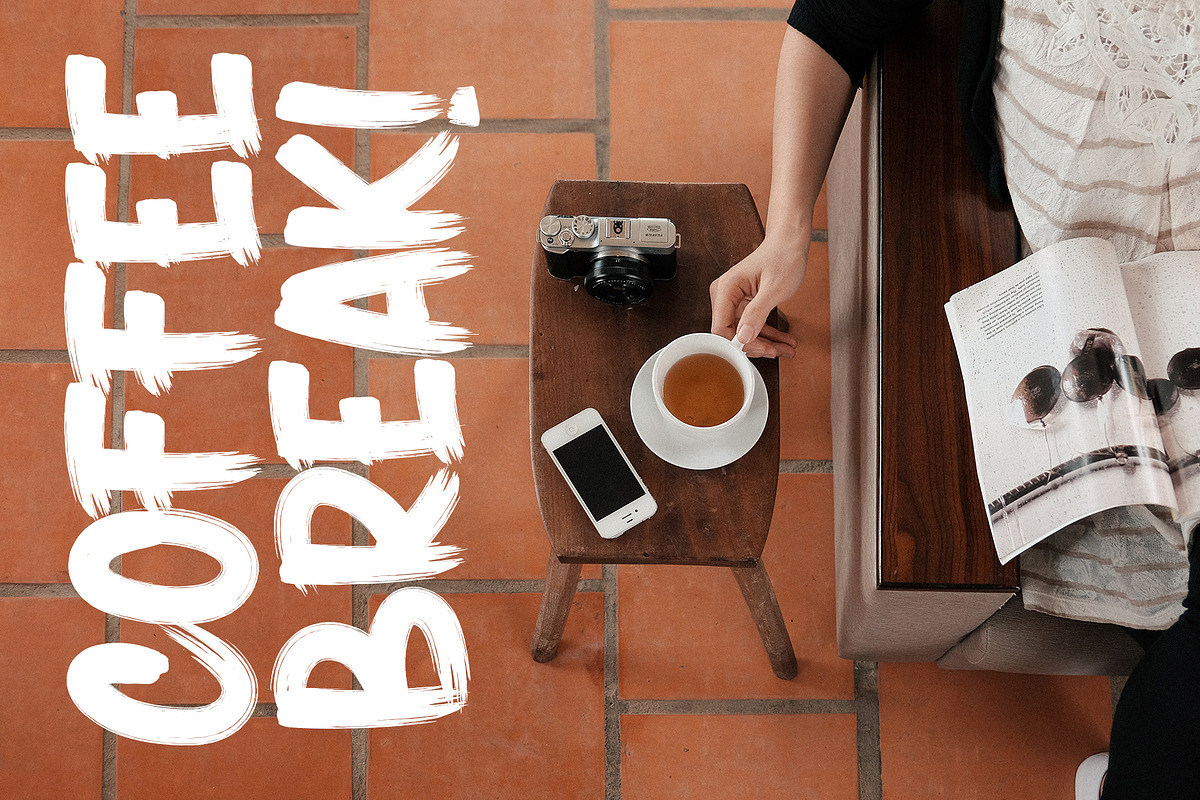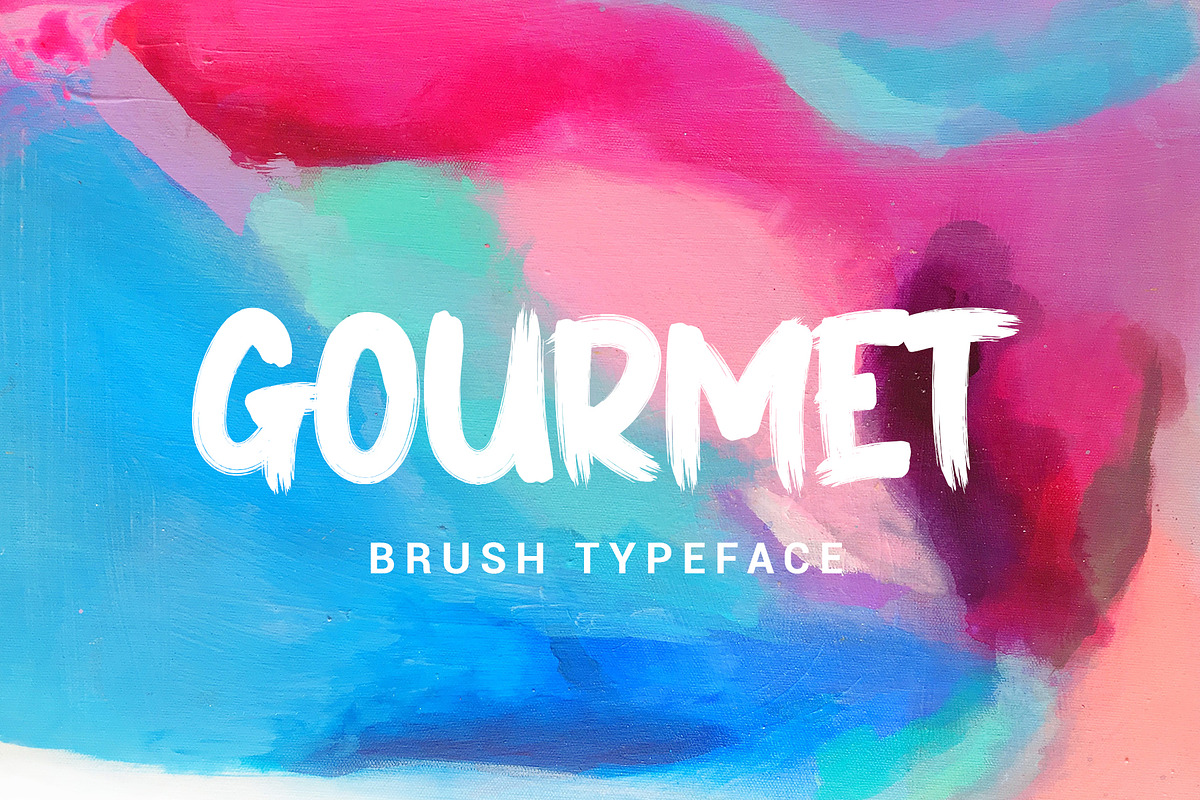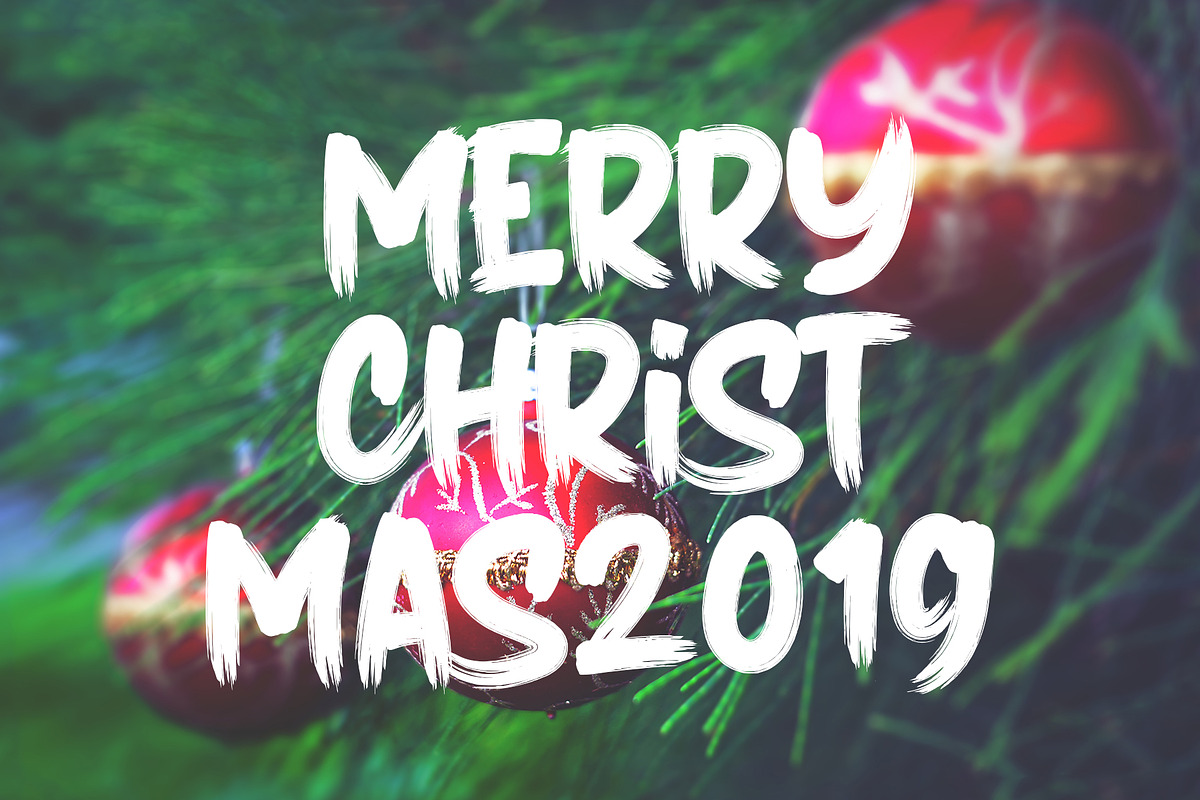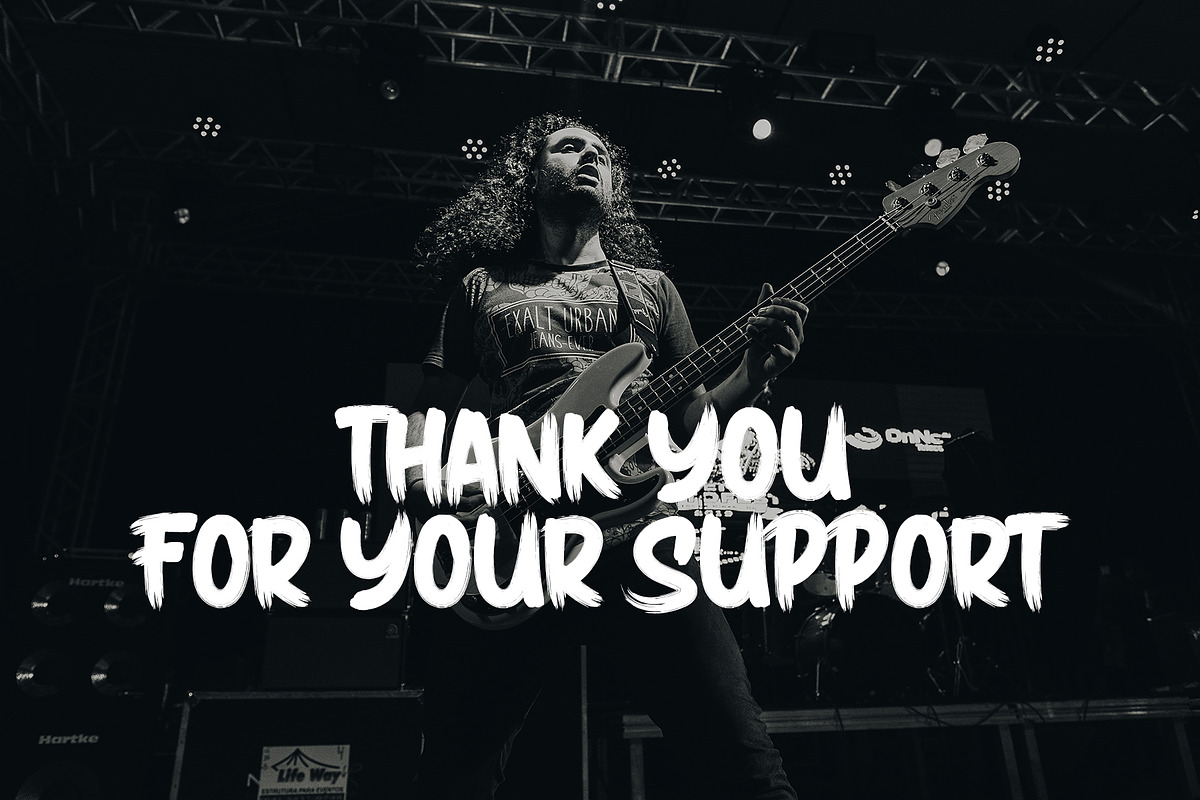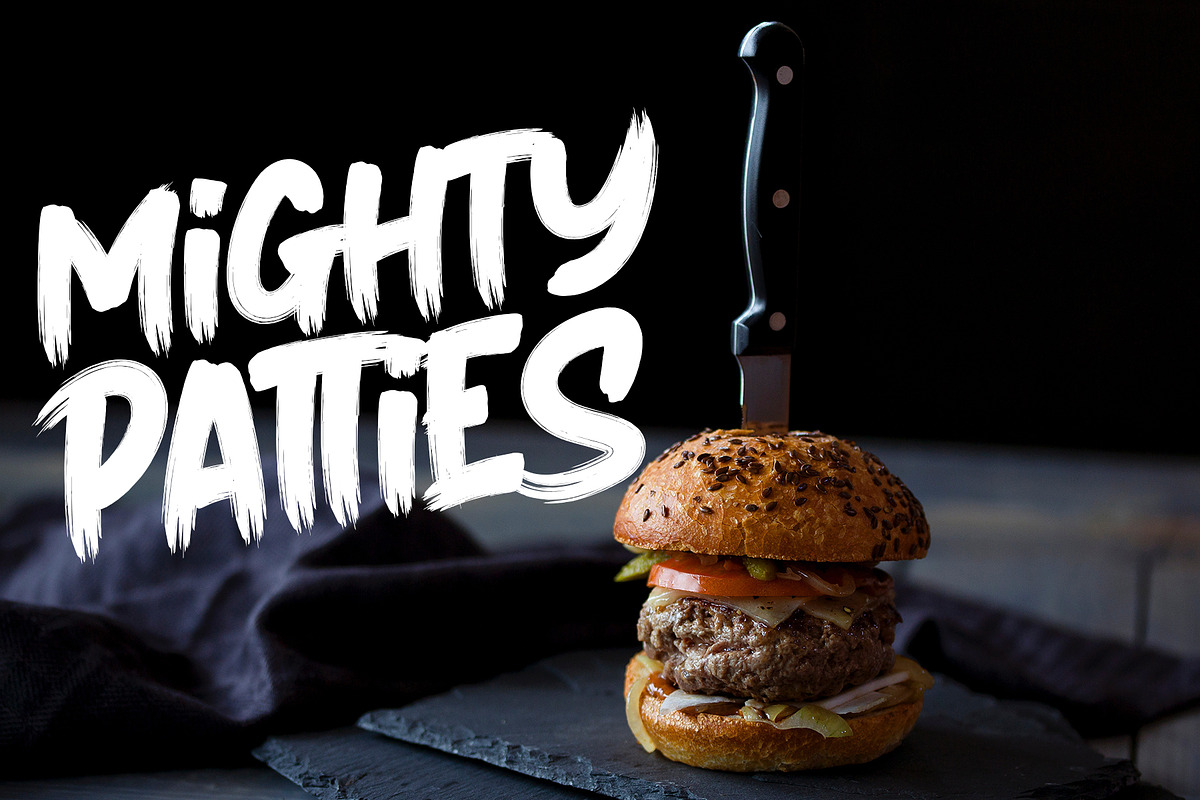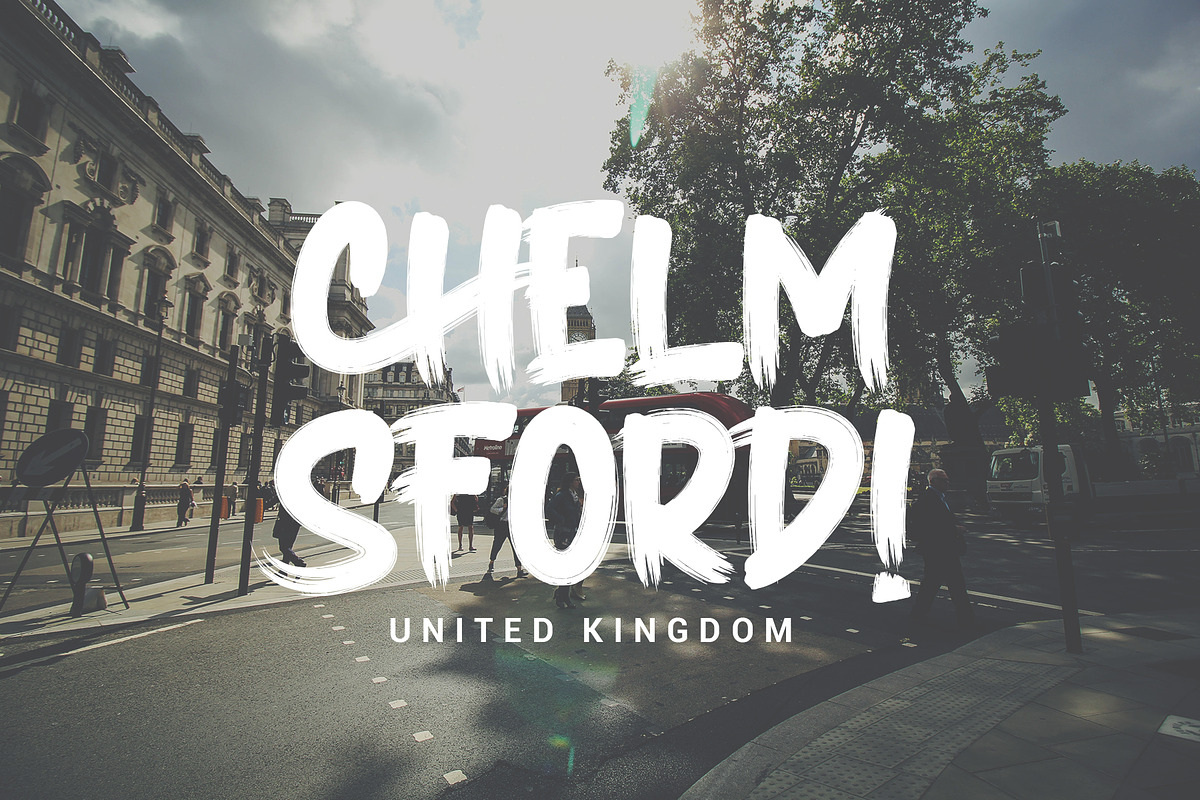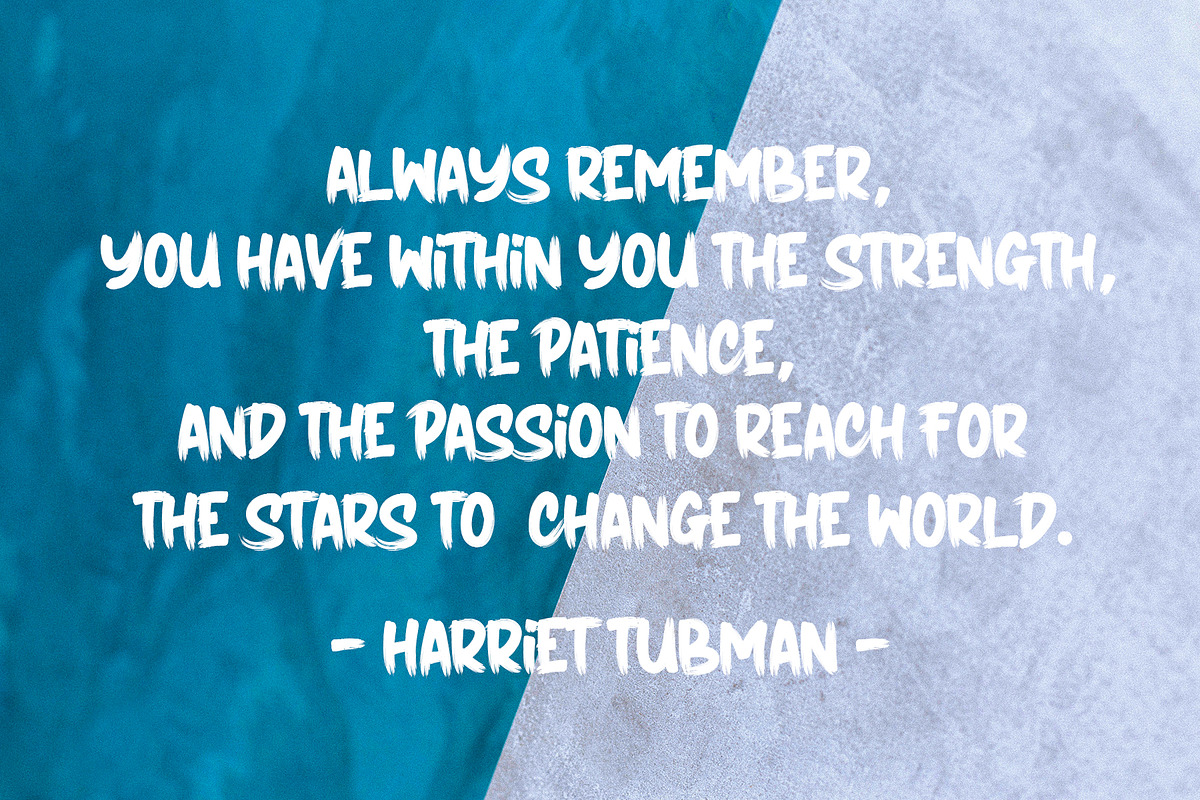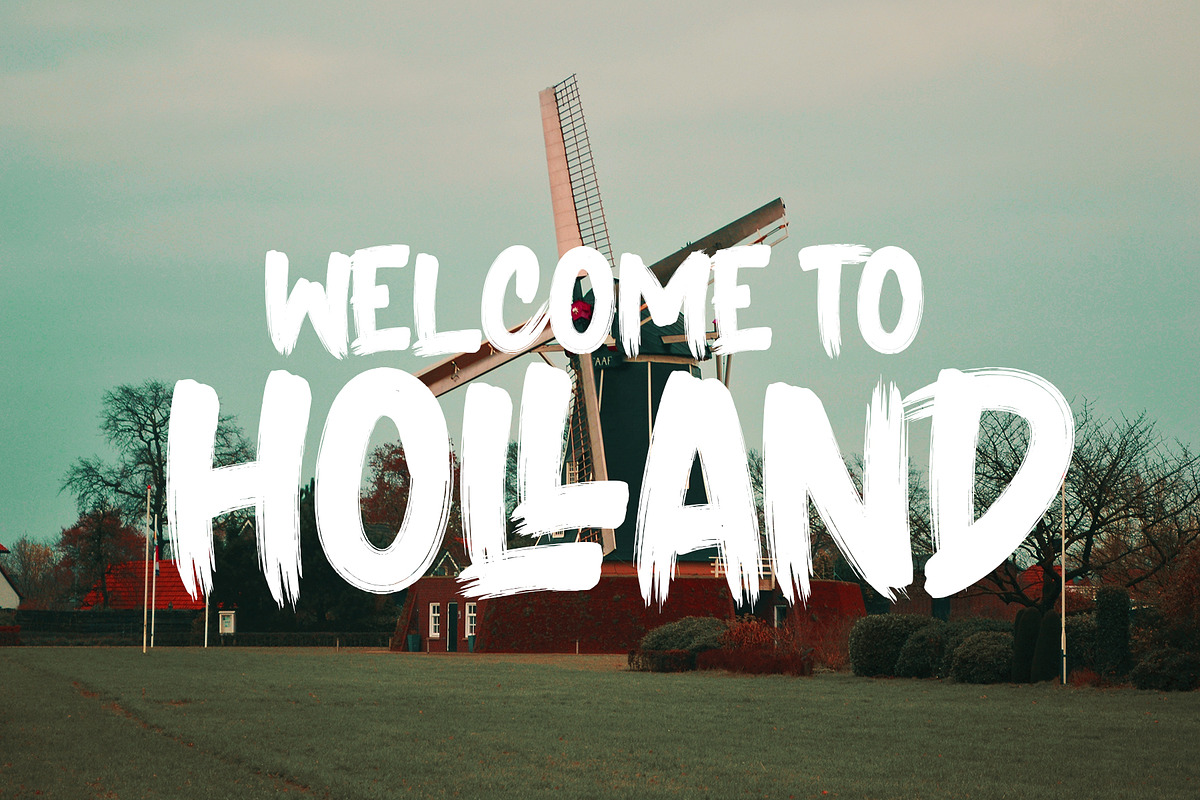
GOURMET // STRONG BOLD FONTS
typing with UPPERCASE for access ligature.
- GOURMET UPPERCASE GOURMET LOWERCASE GOURMET NUMERALS GOURMET PUNCTUATION GOURMET MULTILINGUAL GOURMET LIGATURES typing with UPPERCASE for ac
GOURMET // STRONG BOLD FONTS by Crump Hand fits naturally into Branding, posters, packaging, typography.